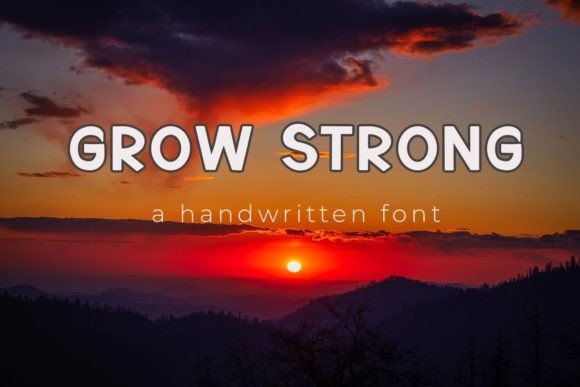
**Introducing Grow Strong: A Handwritten Font That Will Make Your Designs Pop!**
In the world of design, fonts have the power to transform ordinary words into captivating expressions of your brand's personality. Enter Grow Strong, a thick sans serif handwritten font that will add a touch of casual sophistication to any project.
Crafted by the talented Ira Natasha, Grow Strong is a font that exudes a unique blend of warmth and strength. Its bold strokes and smooth curves create a visually appealing contrast that will make your designs stand out from the crowd. Whether you're creating logos, branding materials, or simply adding a personal touch to your handwritten letters, Grow Strong has got you covered.
The beauty of Grow Strong lies in its versatility. It can effortlessly elevate any design, from whimsical invitations to bold marketing campaigns. Its handwritten style adds a touch of authenticity and charm, making it perfect for creating personal branding materials or adding a human touch to your business communications.
But Grow Strong is more than just a pretty face. It's a font that will help you communicate your message clearly and effectively. Its thick strokes ensure that your words will be legible even at small sizes, making it ideal for both print and digital designs.
**Benefits of Grow Strong:**
* Captivating handwritten style that adds a unique touch to your designs
* Bold strokes and smooth curves for maximum visual impact
* Versatile font that can be used for a wide range of design projects
* Perfect for creating logos, branding materials, and handwritten letters
* Enhances the readability and clarity of your message